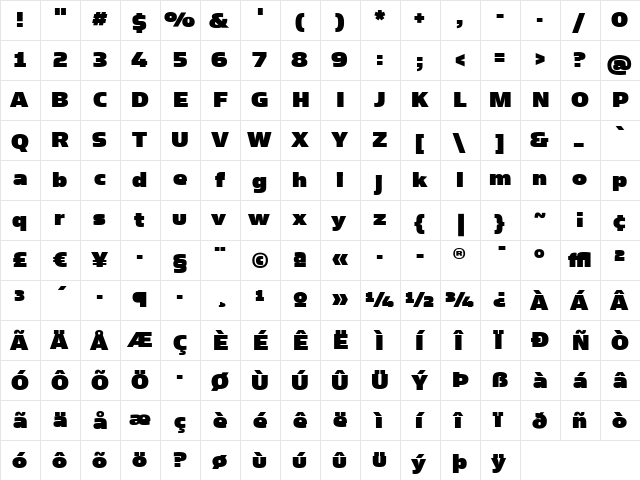
SimianText Medium
Design Context for SimianText Typeface
SimianText is a composed and adaptable typeface that performs quietly and consistently across a wide range of design contexts.